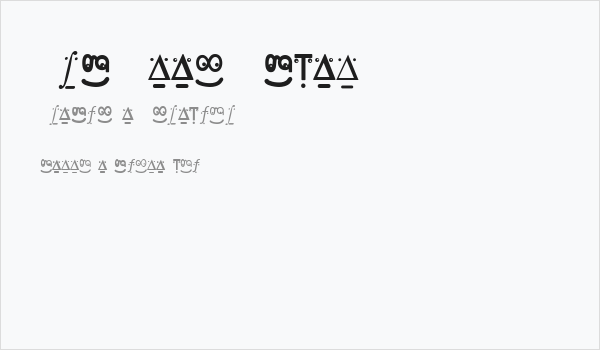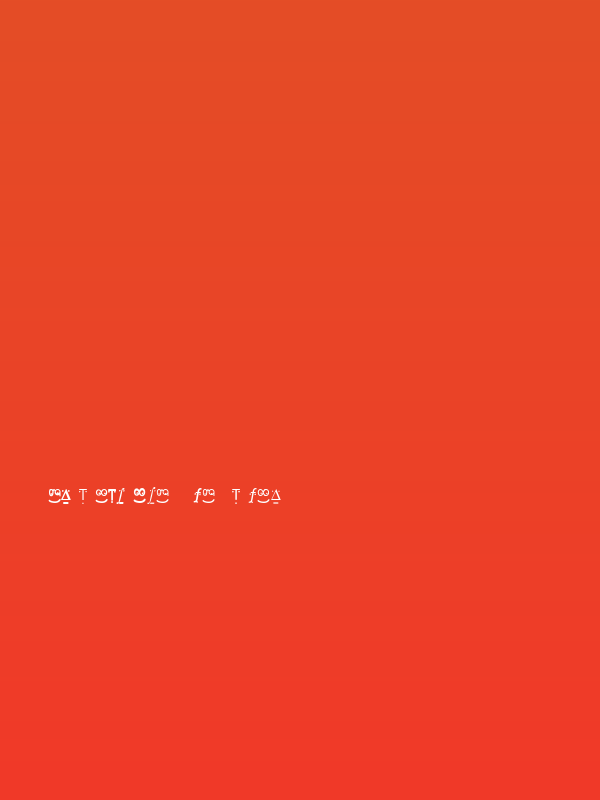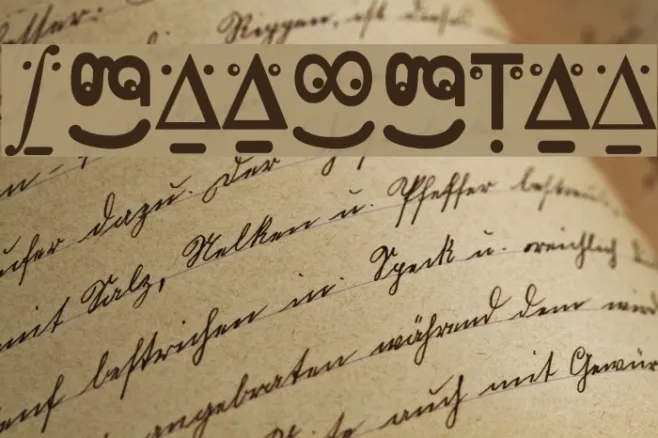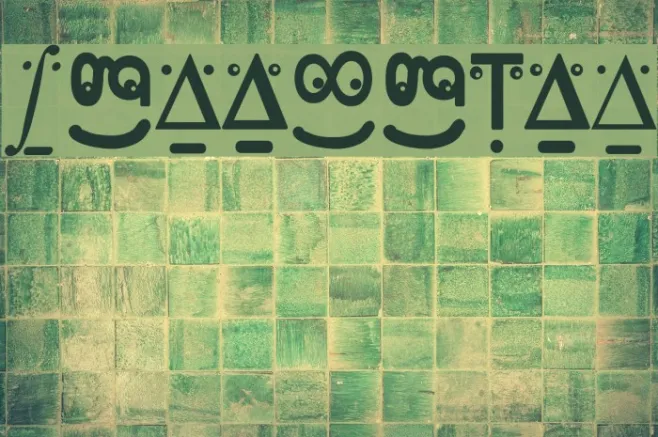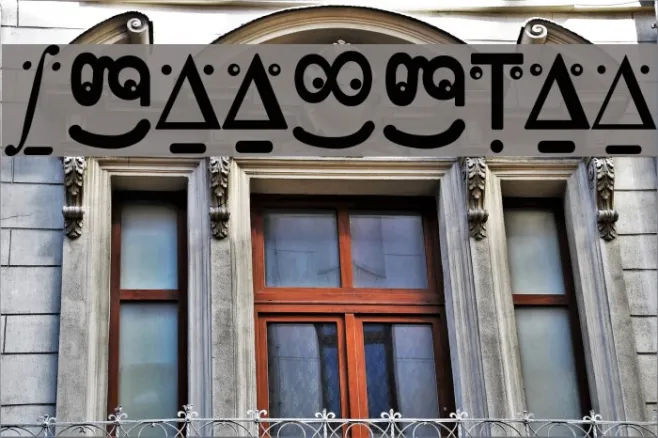
FranKleinFaces Font
FranKleinFaces Description
This font is a playful and decorative typeface that incorporates facial elements into each character, creating a whimsical and engaging appearance. The letters are designed with bold strokes and feature eyes and mouths, giving them a lively and animated feel. The overall design is highly creative, making it stand out for its unique approach to typography. The characters are evenly spaced, ensuring readability while maintaining their distinctive style. This font is perfect for projects that aim to capture attention and convey a sense of fun and creativity.
| Overall Style | Whimsical and playful |
| Use Case | Logos, Posters, Creative projects |
| Proposed Projects | Ideal for children's books, playful branding, creative posters, and party invitations. |